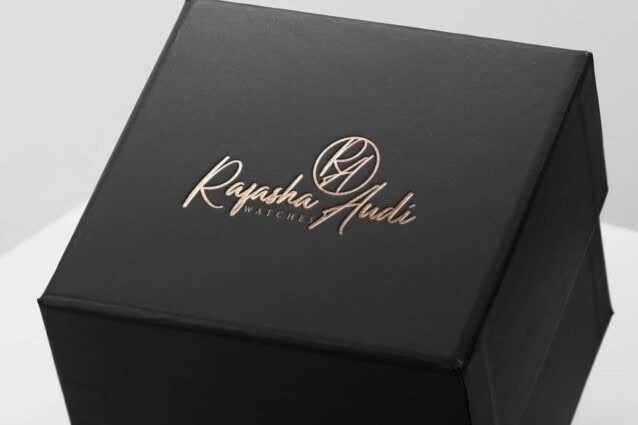
Ruang Santai Font
Ruang Santai Font is a casual handwriting font with an awesome signature style and is suitable for banners, blogs, branding logo, brochure, business card, covers, flyer, greeting cards, headers, labels, mockup, poster, product packaging, signatures, stationery, template, titles, website, and other needs. It gives a personal touch based on delicate and simple brush.